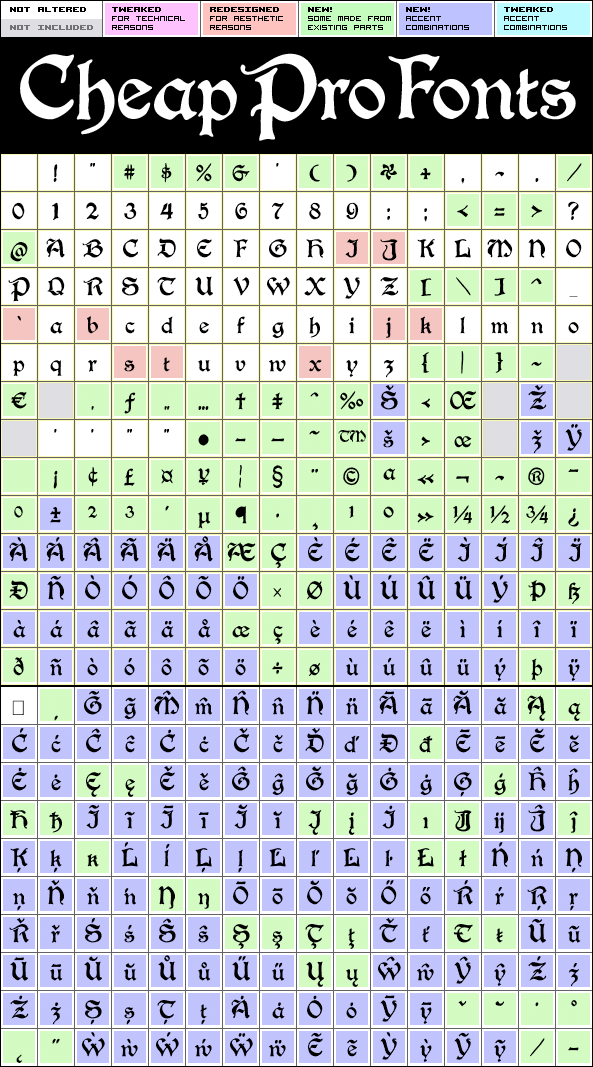
Boister Black Pro
Boister Black Pro by Paul Lloyd
Paul Lloyd
(78 in original)
274 class kernpairs
= 4790 kerning pairs
(none in original)
This font probably had the most basic character set I've ever used as a starting point - but I loved the look of it so much that I couldn't resist reworking it! :)
So... after the longest development time yet: here it is in its complete, multilingual state. I hope this wonderful blackletter font by CheapProFonts newcomer Paul Lloyd now finds many new users and uses. Celebrate!
Boister Black Pro is a professionally reworked font that contains an extended character set for setting text in 65 languages requiring more than the basic A-Z!